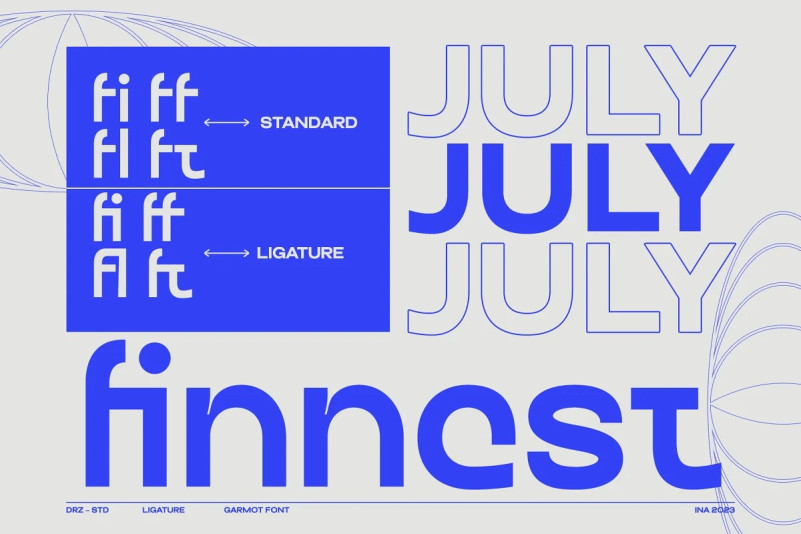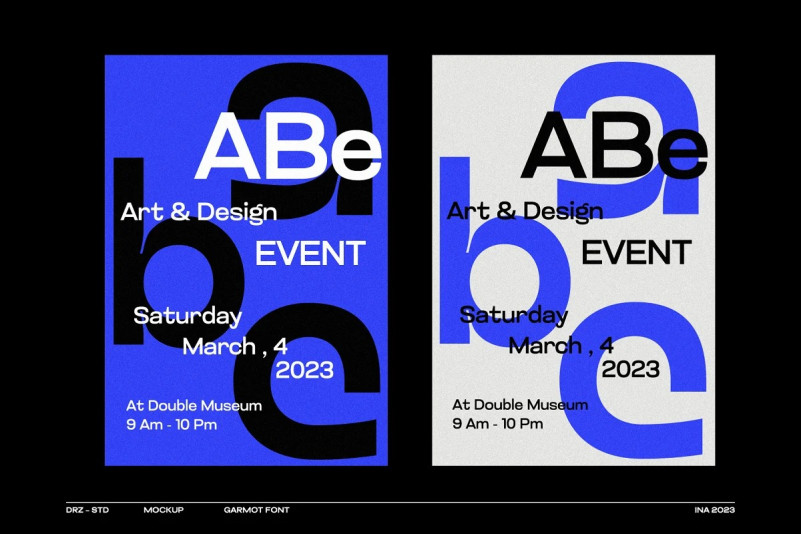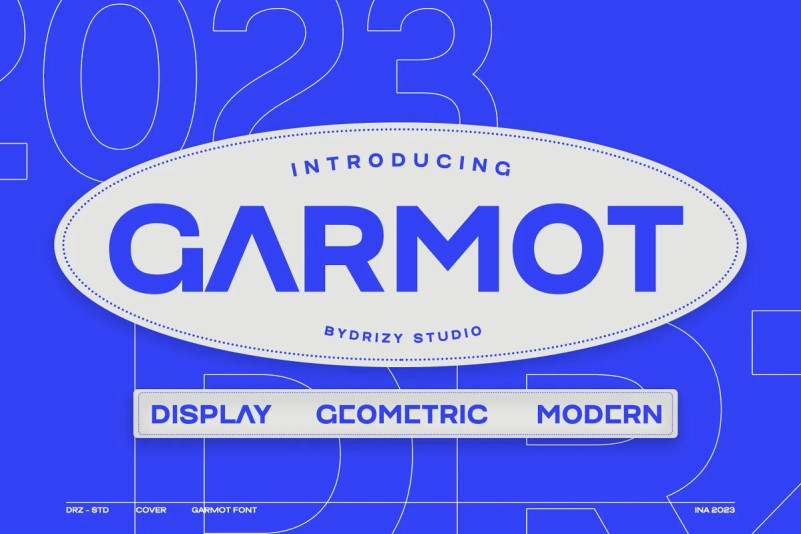
Garmot Font
Garmot Font is a modern geometric font from Drizy Studio. Provides all the styles you need for your projects.
Garmot Features: Uppercase & Lowercase Punctuation & Numbers Multi-language Support Collage substitution